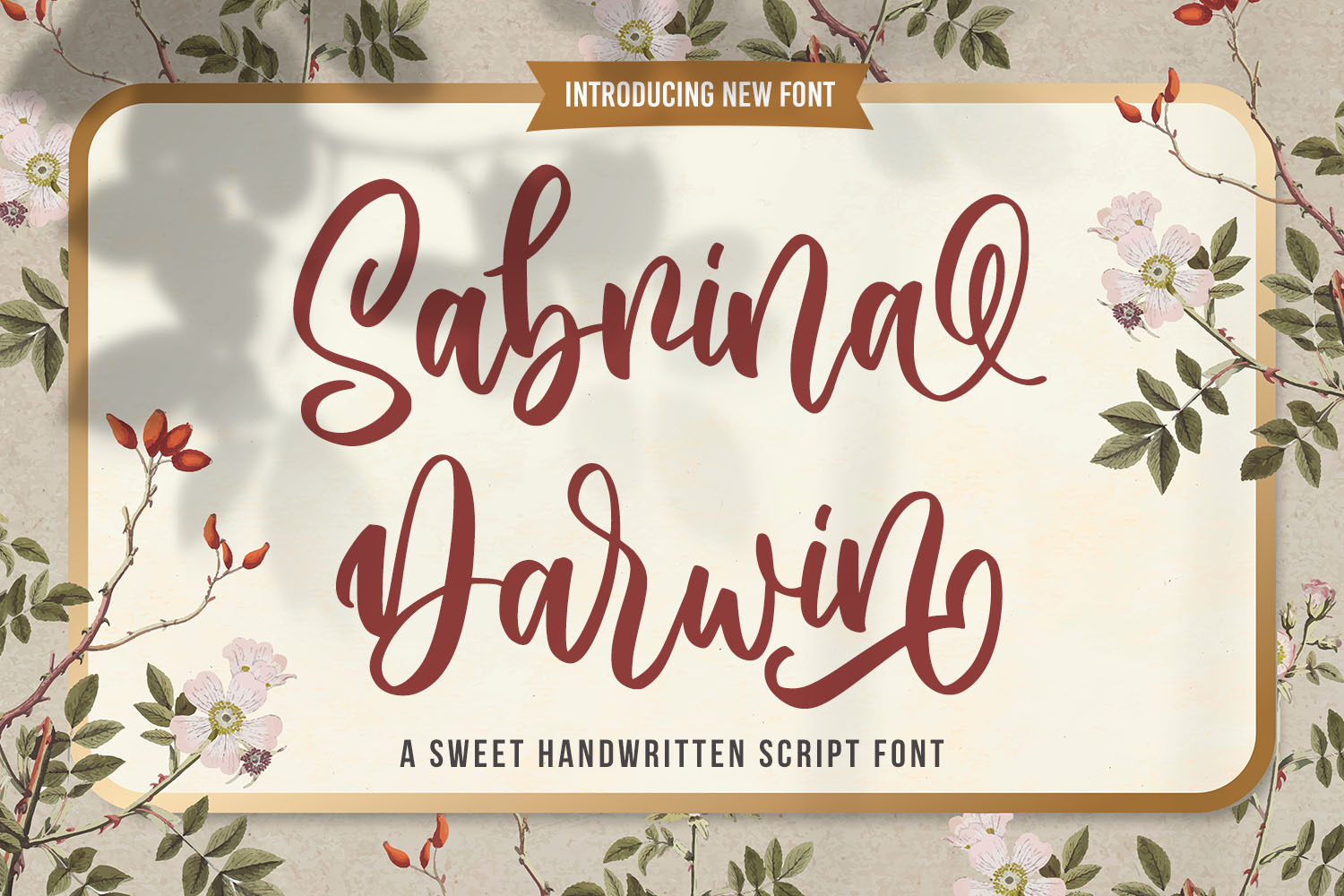
Sabrina Darwin Sweet Script Font
Sabrina Darwin is a sweet and modern script font with a natural & stylish flow. This collection of scripts is perfect for personal branding.
This Font is perfect for many different projects such as logos & branding, invitation, stationery, wedding designs, social media posts, advertisements, product packaging, product designs, label, photography, watermark, special events, or anything.